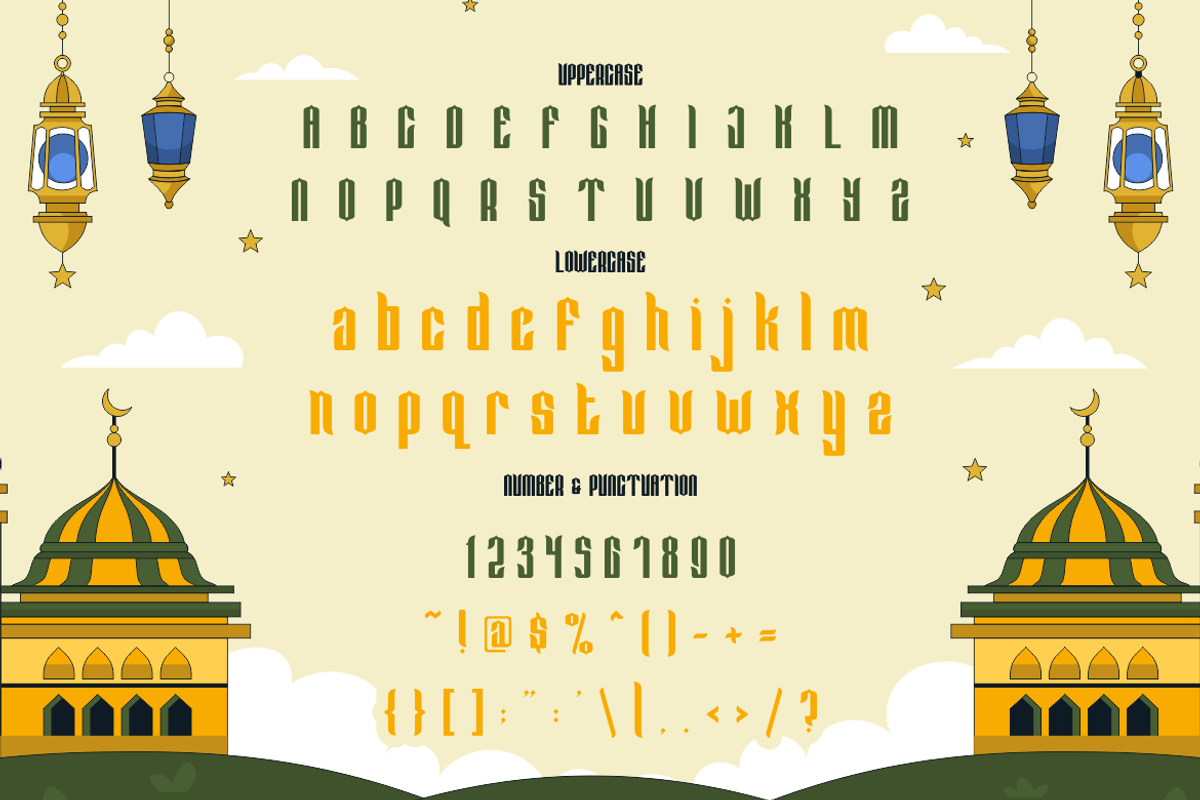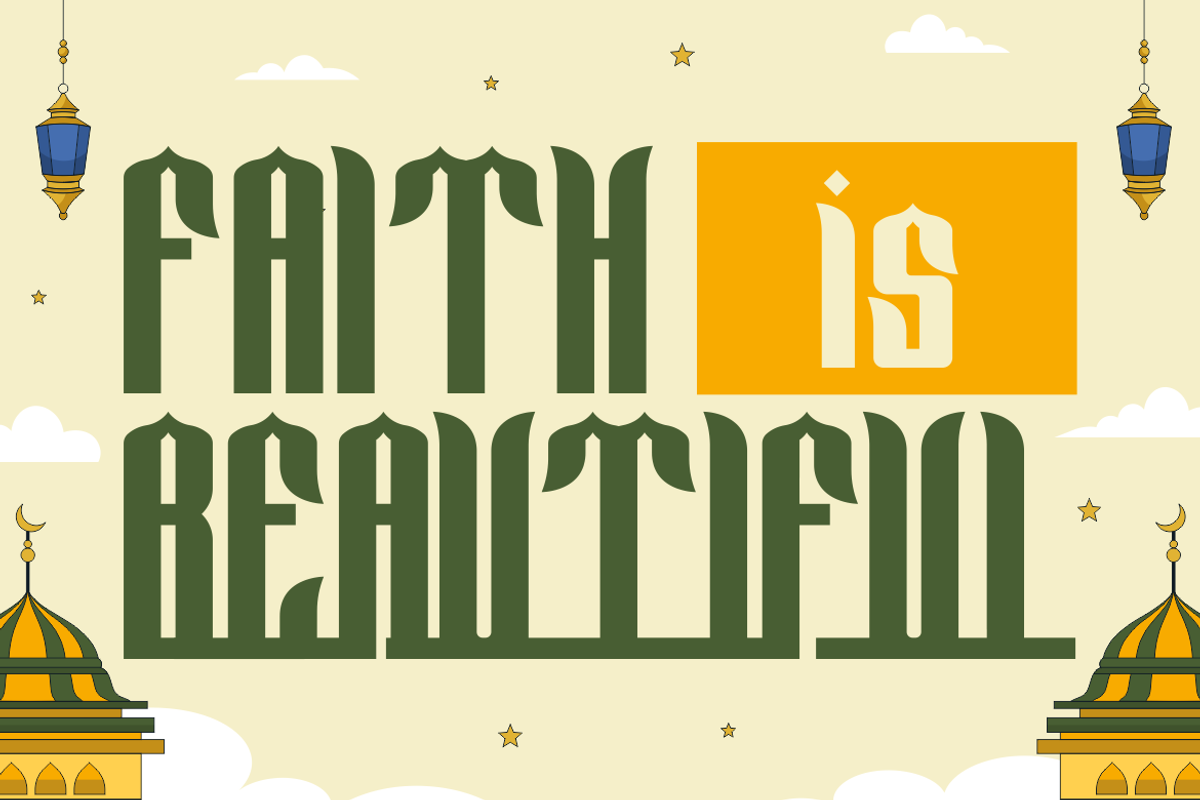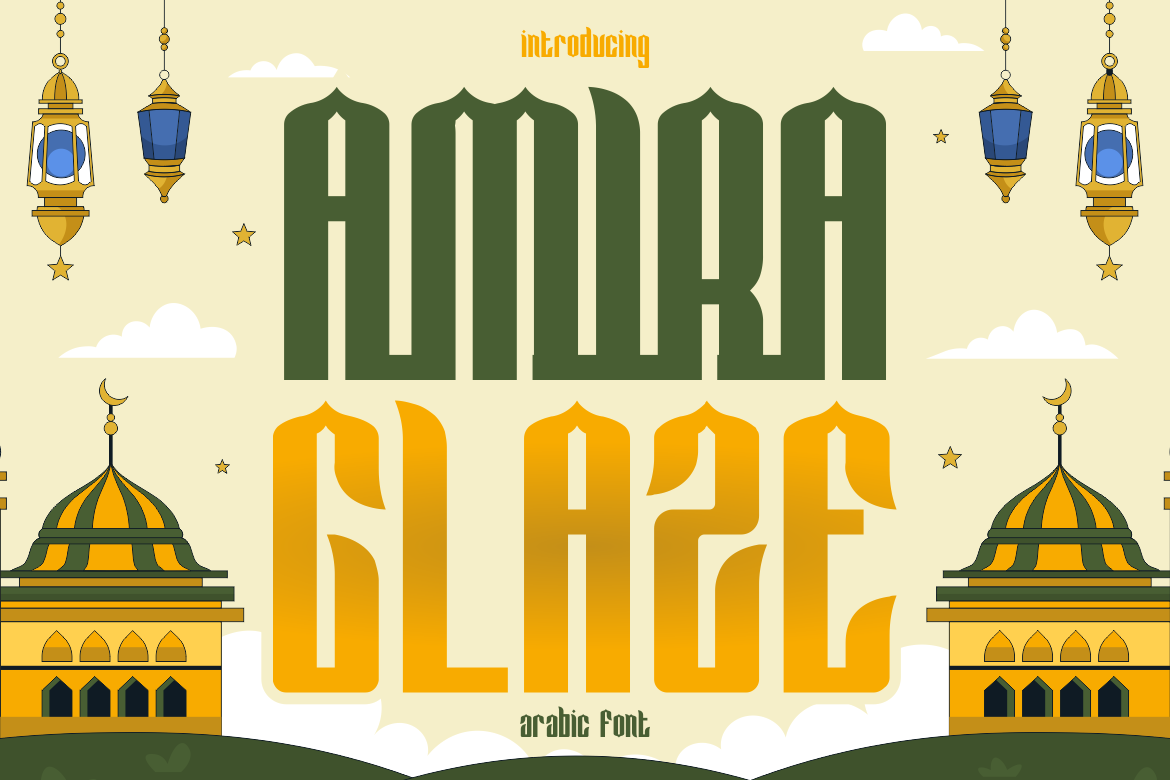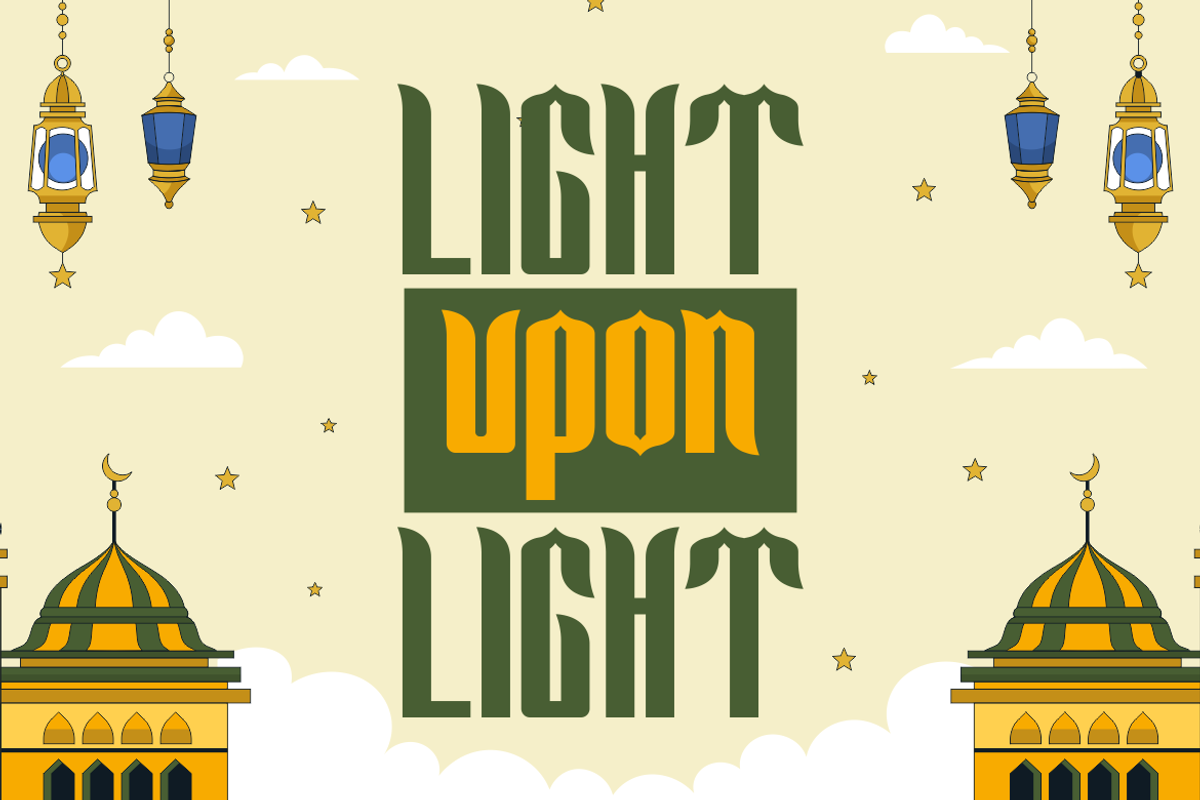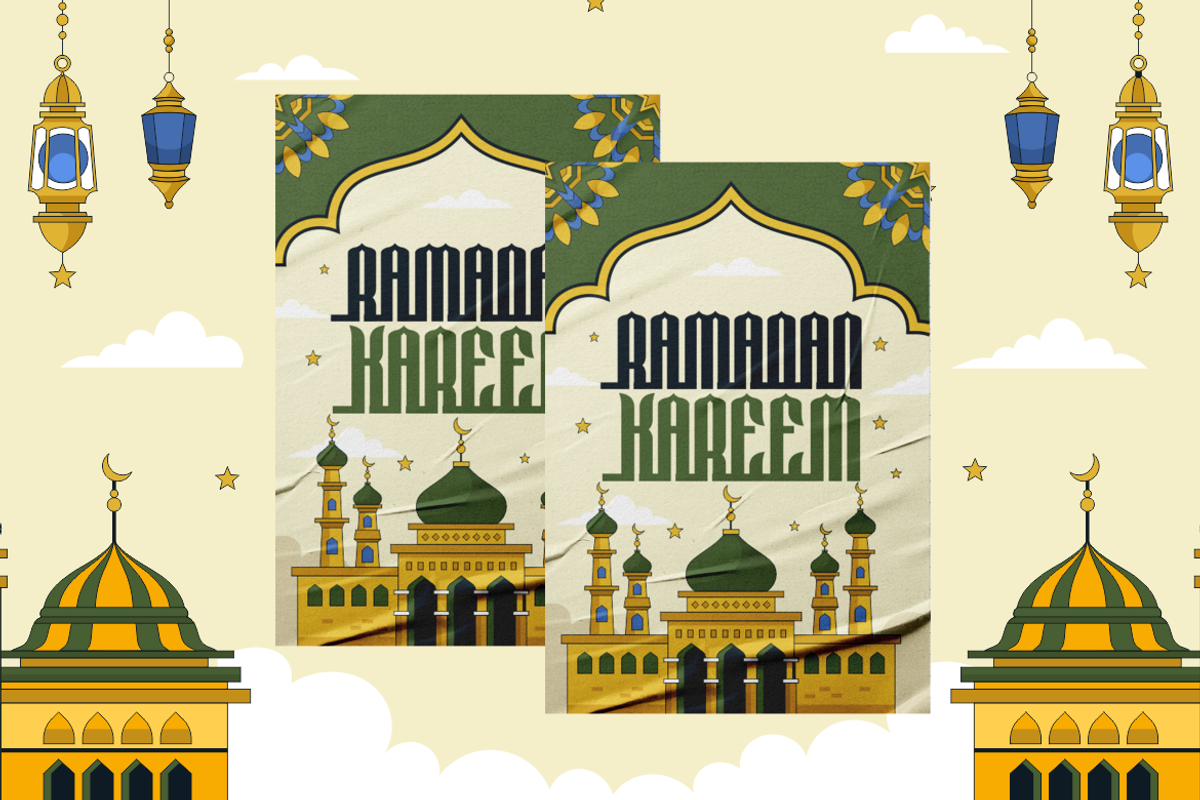
Amira Glace - Arabic Font
Amira Glace is a bold Arabic-style display font designed to capture the essence of Islamic and Middle Eastern aesthetics. Featuring a tall and condensed structure, this typeface integrates ornamental strokes at the top of each letterform, mimicking the arches and domes found in Islamic architecture. Each glyph is meticulously crafted to reflect cultural depth while maintaining legibility and balance. The combination of symmetrical angles and vertical strokes gives it a regal and spiritual look, ideal for religious and festive applications. Its uppercase and lowercase styles offer dual-toned possibilities, using rich green and gold shades to symbolize growth and prosperity.
This font is perfect for Ramadan campaigns, mosque signage, Islamic book covers, and elegant invitations. It shines on posters, branding for Halal products, greeting cards, and Eid Mubarak packaging. Amira Glace balances tradition and modernity, bringing a sacred visual language to any creative project. Compatible with multilingual characters and punctuation, it adds global versatility to your toolkit.